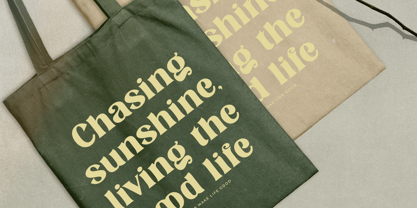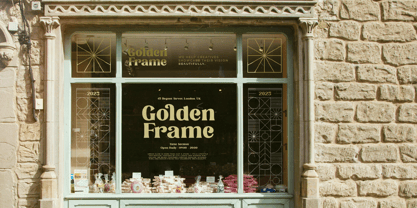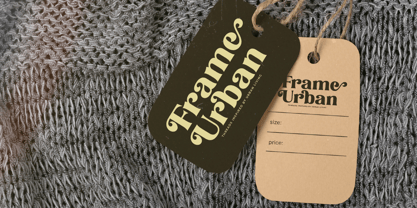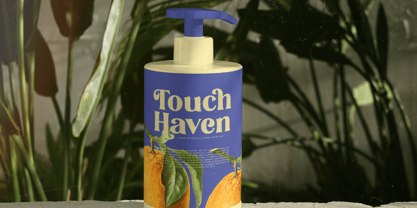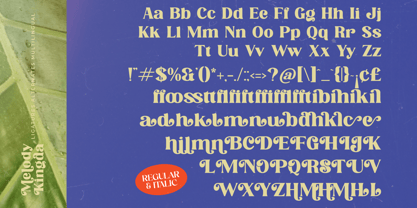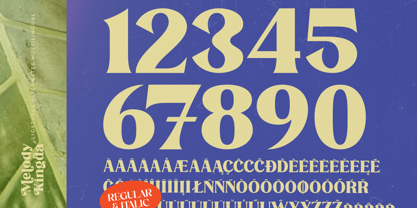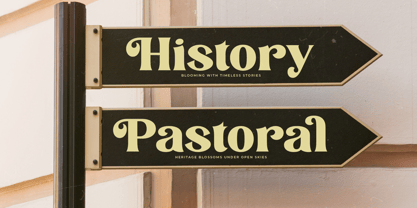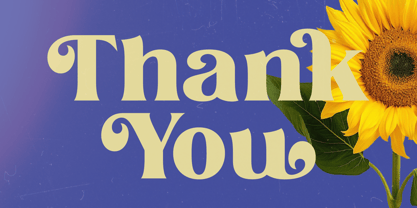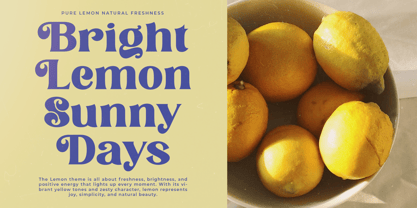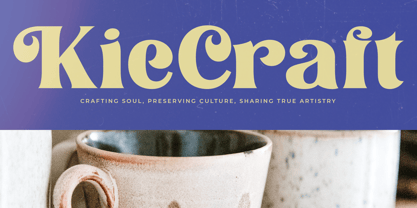
Melody Kingda
Die Schriftfamilie Melody Kingda wurde von Heru Utama Putra entworfen und von Timelesstype Studio veröffentlicht. Melody Kingda enthält 2 Stile und Familienpaketoptionen.
Melody Kingda - New Modern Serif Font , from Timelesstype , Suitable for any projects such as: logos, branding projects, homeware designs, product packaging, mugs, quotes, posters, shopping bags, t-shirts, book covers, name card, invitation cards, greeting cards, label, photography, watermark, special events, and all your other luxury and beautiful projects that need a Luxury Serif taste.